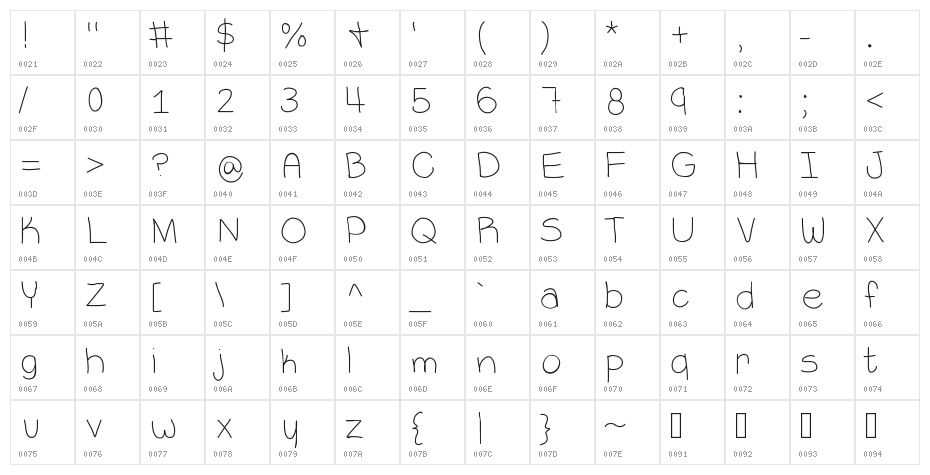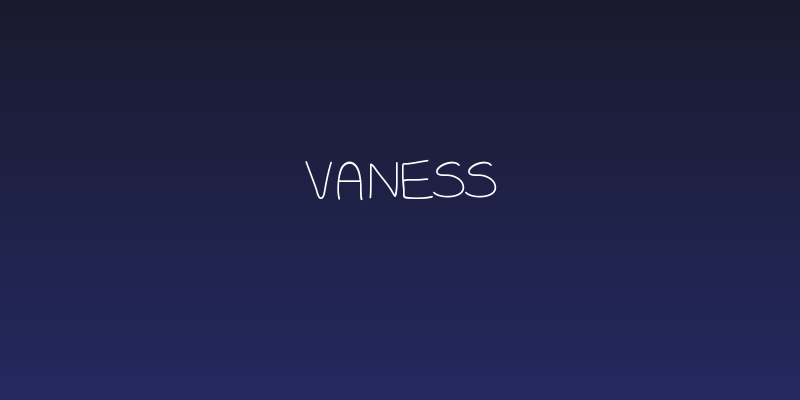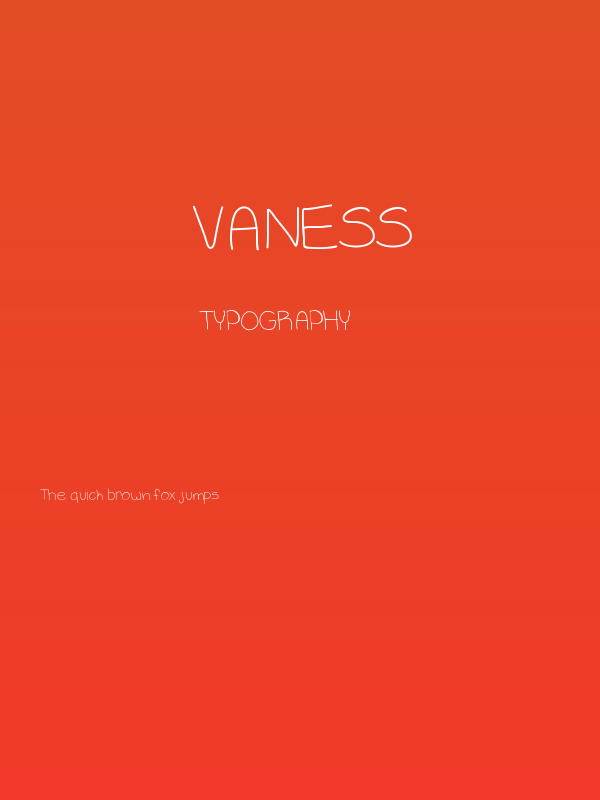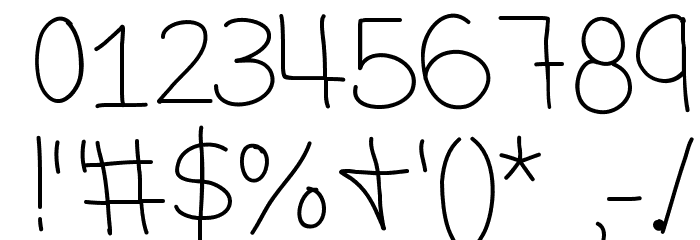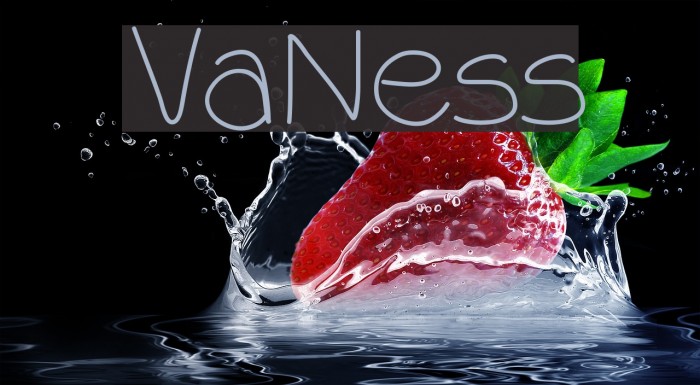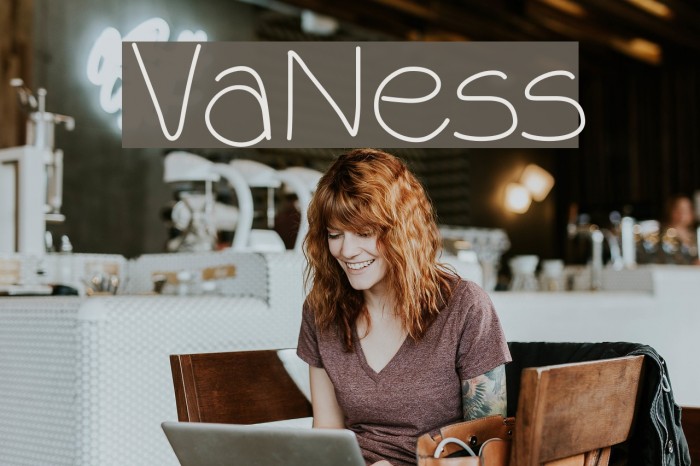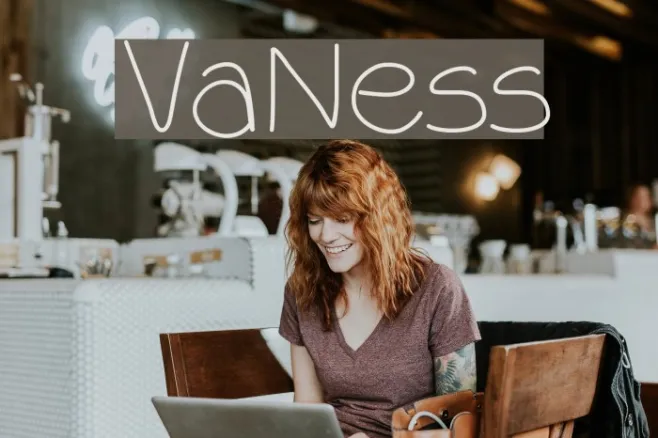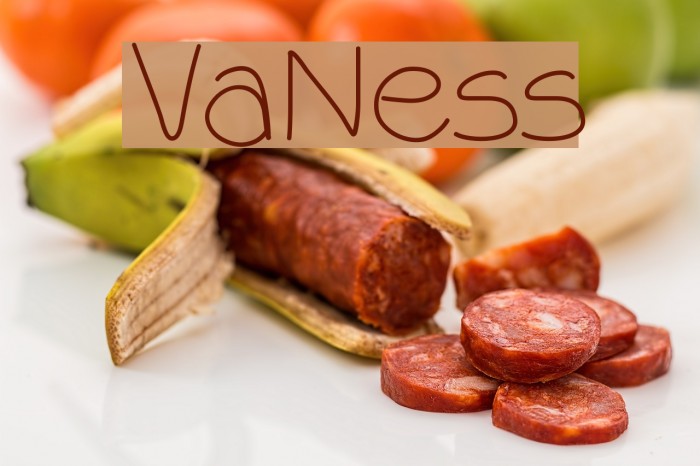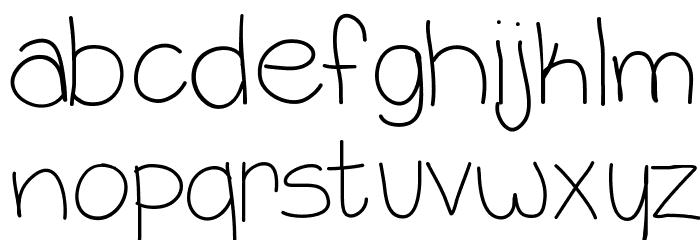
VaNess Font
VaNess Description
This font features a playful and casual handwritten style, characterized by its smooth, rounded edges and slightly irregular letterforms. The uppercase and lowercase letters maintain a consistent flow, giving it a friendly and approachable appearance. The numerals and special characters follow the same aesthetic, ensuring uniformity across all glyphs. Its informal style makes it ideal for projects that require a personal touch, such as greeting cards, invitations, or children's books. The font's simplicity and readability also make it suitable for digital content aimed at a younger audience.
| Use Case | Headlines, Informal text, Digital content |
| Proposed Projects | Ideal for greeting cards, invitations, children's books, and digital content for a young audience. |